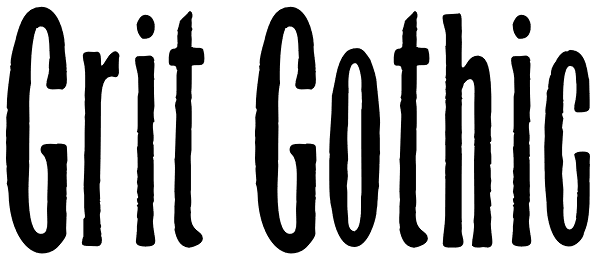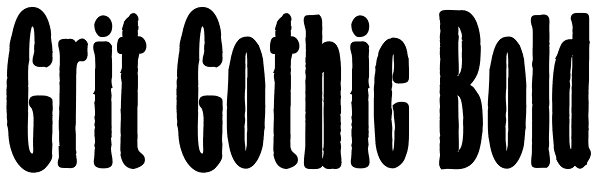
Grit Gothic
You can hear the wheels of imagination turning within this font - Grit Gothic, from Grit History™ B Series, by Baseline Fonts. Both highly stylized and very legible, the extreme height of this font can give even a goblin vertigo. Extended X heights...
Grit Gothic
Grit Gothic Bold